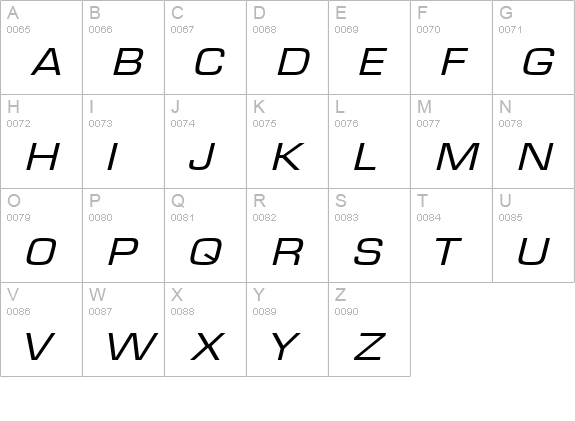
Waukegan LDO Extended Oblique is a distinctive, extended-width, italic variant in the Waukegan typeface family \xE2\x80\x94 well suited to design and typography projects.
The Waukegan LDO Extended Oblique font is a stunning typeface that exudes elegance and sophistication. Its sleek and slanted design adds a touch of modernity to any project, making it perfect for both digital and print applications. With its extended letterforms, this font offers a unique and captivating look that instantly grabs attention. This font is not only visually appealing but also highly versatile. Whether you're designing a logo, creating a poster, or crafting a website, the Waukegan LDO Extended Oblique font will effortlessly elevate your work to new heights. Its clean lines and well-balanced letterforms ensure legibility while still maintaining a distinct personality. One of the best things about the Waukegan LDO Extended Oblique font is that it is free! Yes, you read that right. This exceptional typeface is freely available to download at FontsMarket.com, a trusted source for high-quality fonts. By offering this font for free, the creators behind Waukegan LDO Extended Oblique have made it accessible to a wide range of designers, students, and professionals alike. With its sleek and stylish appearance, the Waukegan LDO Extended Oblique font is bound to become a go-to choice for designers looking to make a bold statement. Its extended letterforms and oblique angle add a dynamic touch to any design, making it perfect for headlines, titles, and other prominent elements. So, if you're in search of a versatile and eye-catching font that won't break the bank, look no further than the Waukegan LDO Extended Oblique font. Download it for free at FontsMarket.com and unlock a world of creative possibilities. Whether you're designing for personal or commercial use, this font is sure to impress with its modern aesthetics and effortless charm.